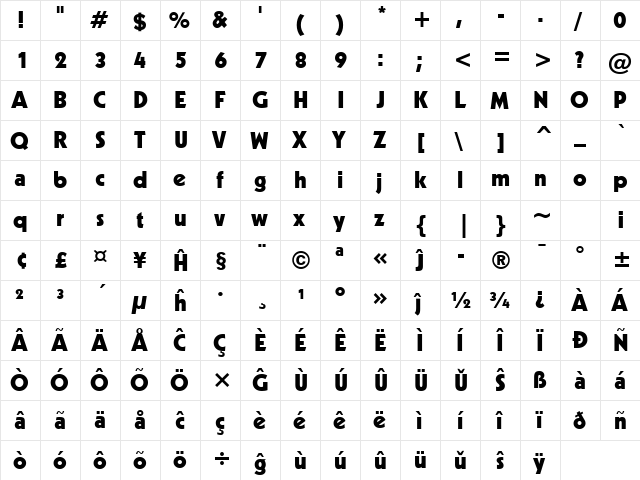
Geometr231 Hv BT Eo Heavy
Design Context for Geometr231 Hv BT Eo Typeface
Geometr231 Hv BT Eo is a composed and adaptable typeface that performs quietly and consistently across a wide range of design contexts.